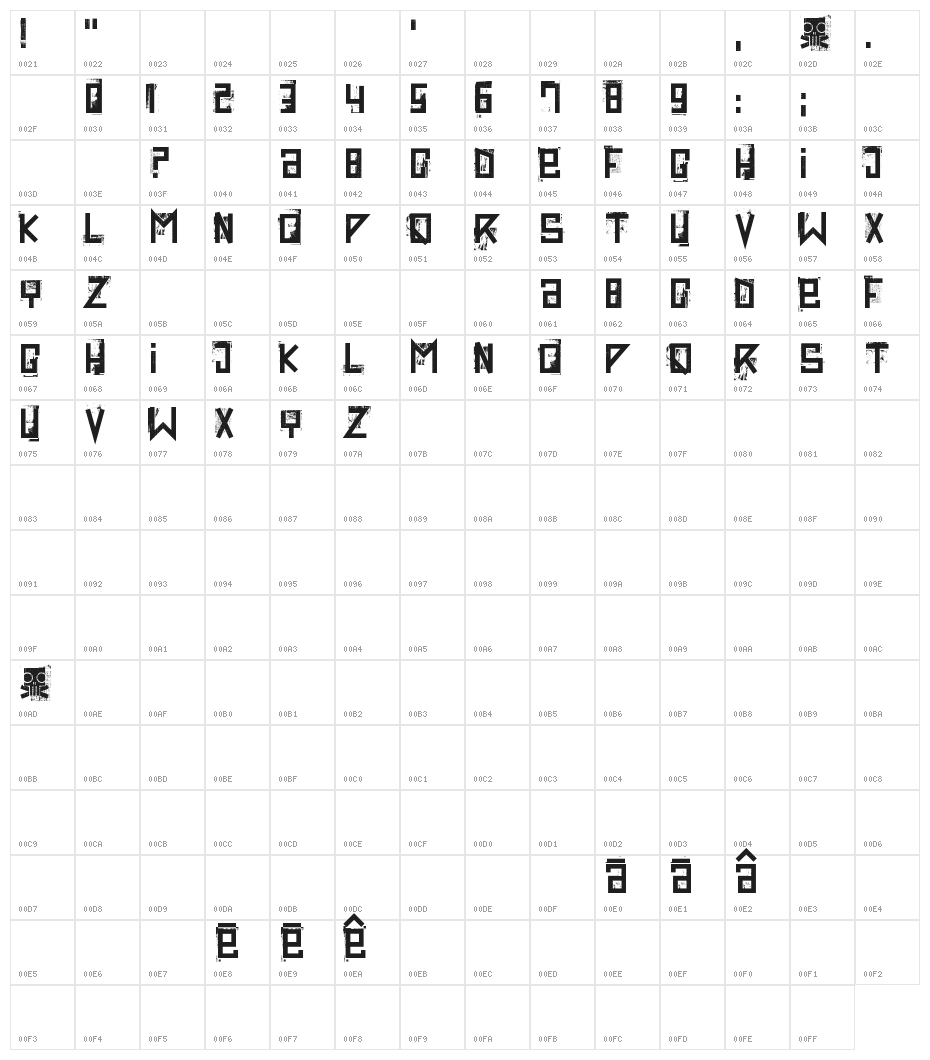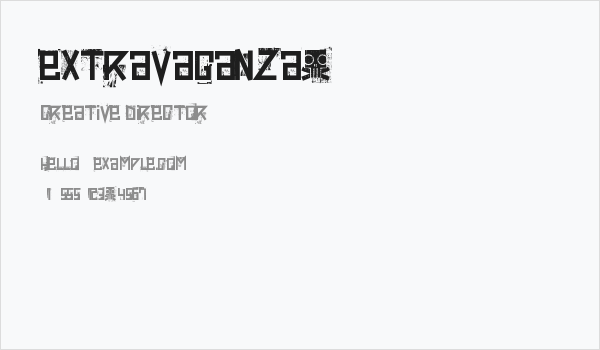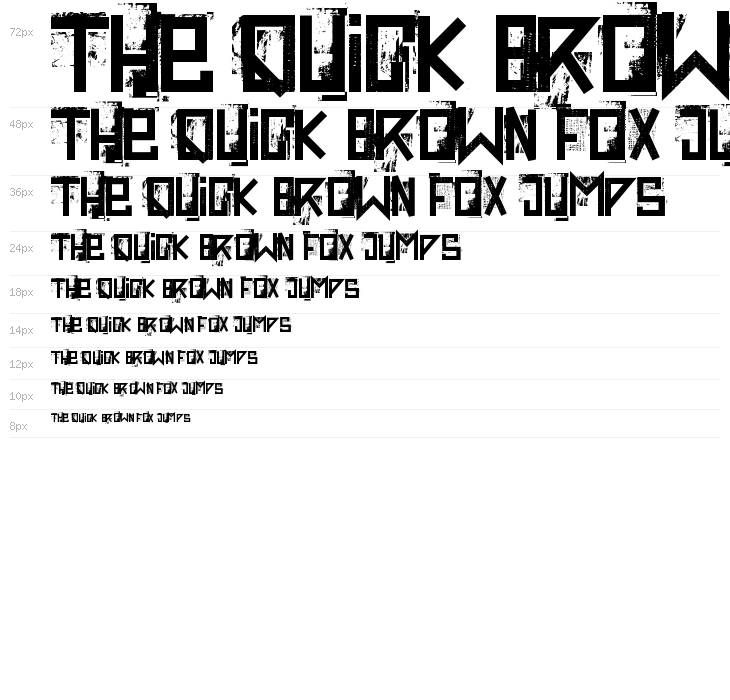
extravaganza- Font
extravaganza- Description
This font features a bold, distressed style with a grunge aesthetic. The characters are blocky and geometric, with a rough texture that gives them a worn, edgy appearance. The uppercase and lowercase letters maintain a consistent height, contributing to a uniform look. The numbers and special characters follow the same design principles, ensuring a cohesive visual identity. The font's unique style makes it stand out, ideal for projects that require a strong, impactful presence.
| Overall Style | Grunge, Urban, Edgy |
| Use Case | Headlines, Posters, Branding |
| Proposed Projects | Ideal for music album covers, event posters, urban-themed designs, and branding for edgy or alternative products. |